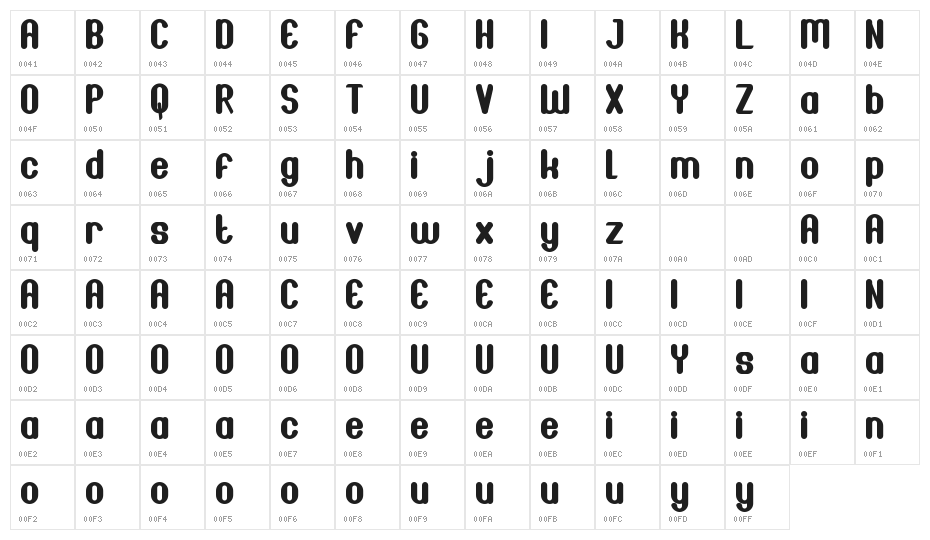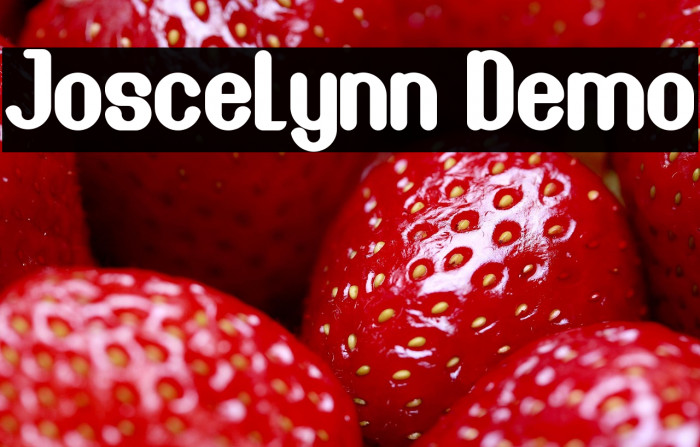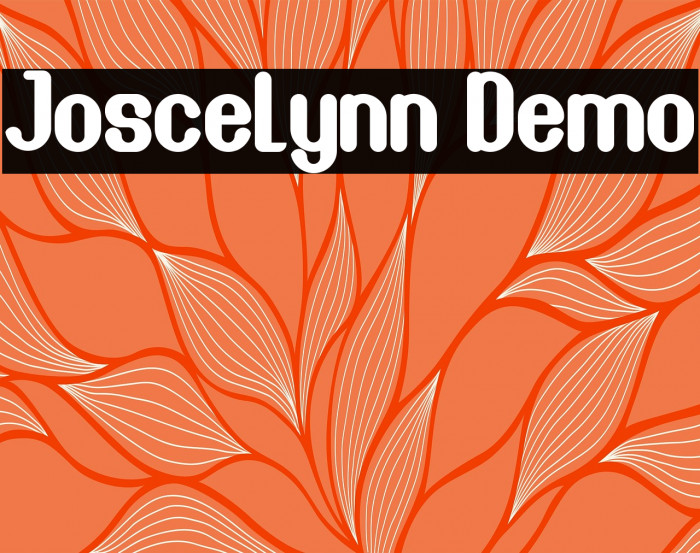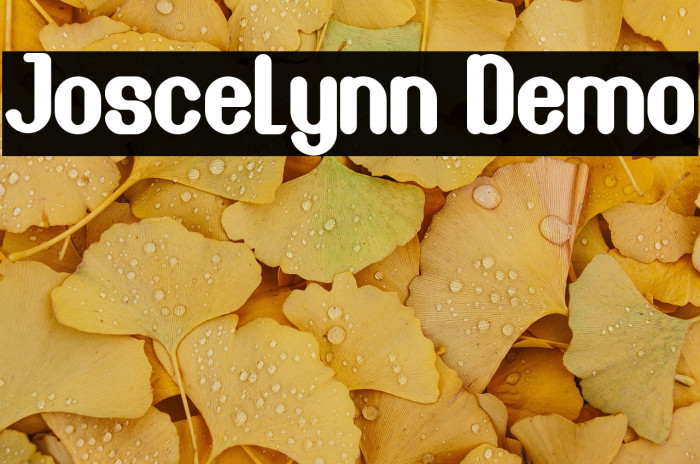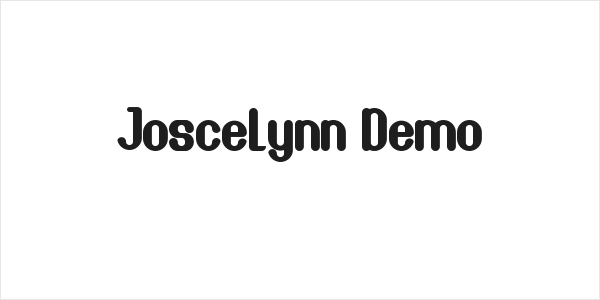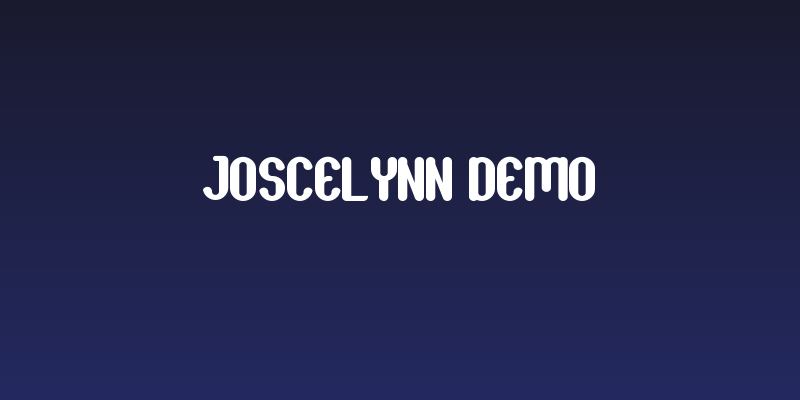
Joscelynn Demo Font
Joscelynn Demo Description
This font features a bold and rounded style with smooth curves and a playful appearance. The characters are uniformly thick, giving it a consistent and cohesive look. The uppercase and lowercase letters maintain a similar width, enhancing readability. The font's rounded terminals and lack of sharp edges contribute to its friendly and approachable feel. It is well-suited for designs that require a modern yet casual aesthetic. The numbers and special characters are designed to match the overall style, ensuring a harmonious appearance across different types of content.